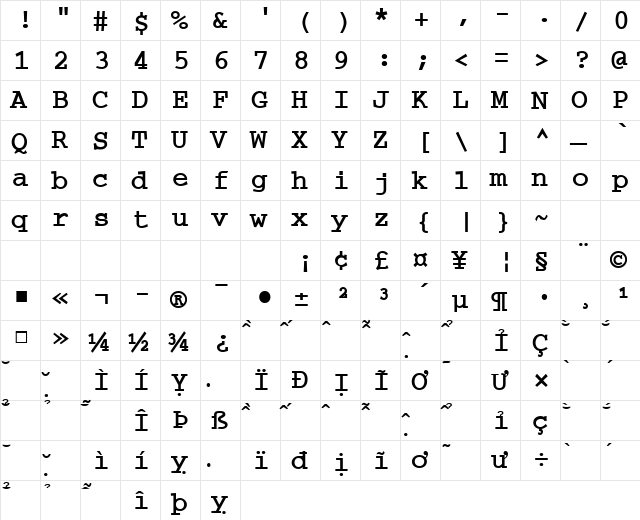
VNI-Couri Bold
Design Context for VNI-Couri Typeface
VNI-Couri takes a measured approach to typography — its balanced proportions and neutral character make it a reliable workhorse for both digital and print work. The heavy weight commands attention and anchors typographic hierarchies.